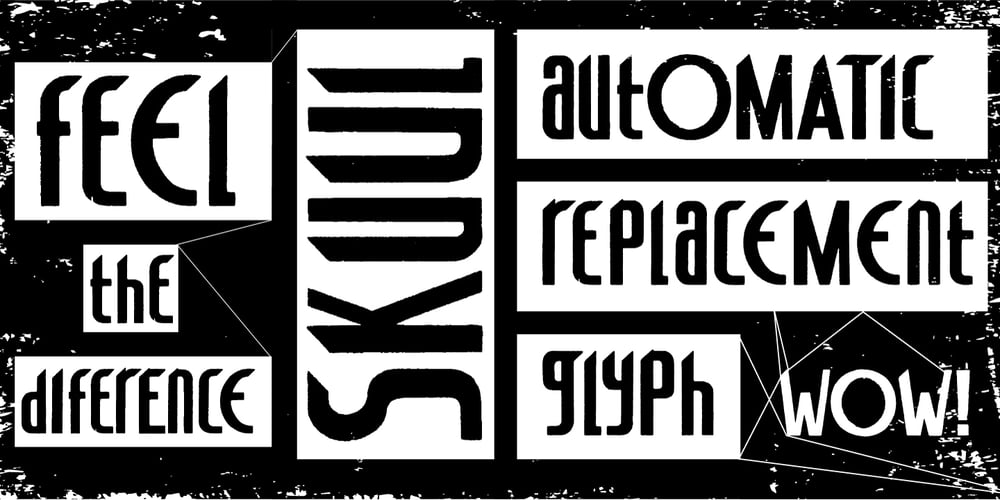
Skuul Font Family was designed by published by Typoforge Studio. Skuul contains 1 styles and family package options. The inspiration for the designing of the font Skuul was Letraset in 1981. Font Skuul, for each character has three alternative characters with their automatic replacement.